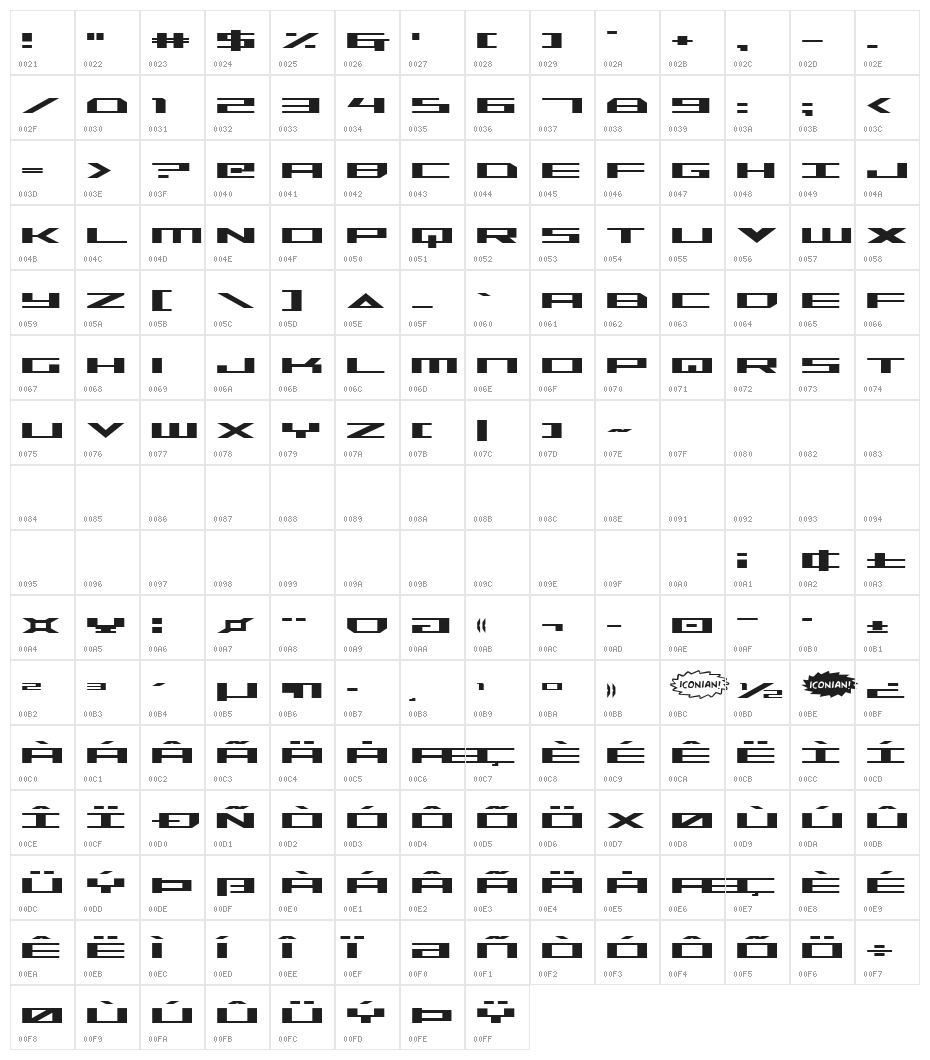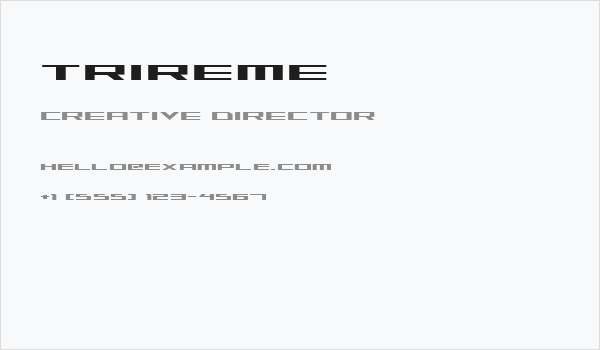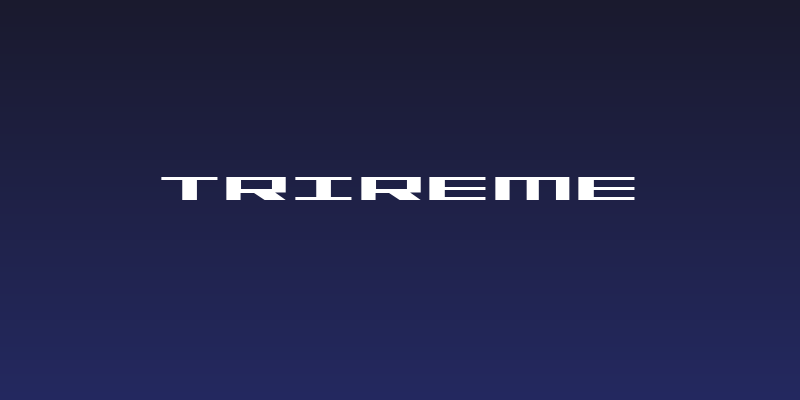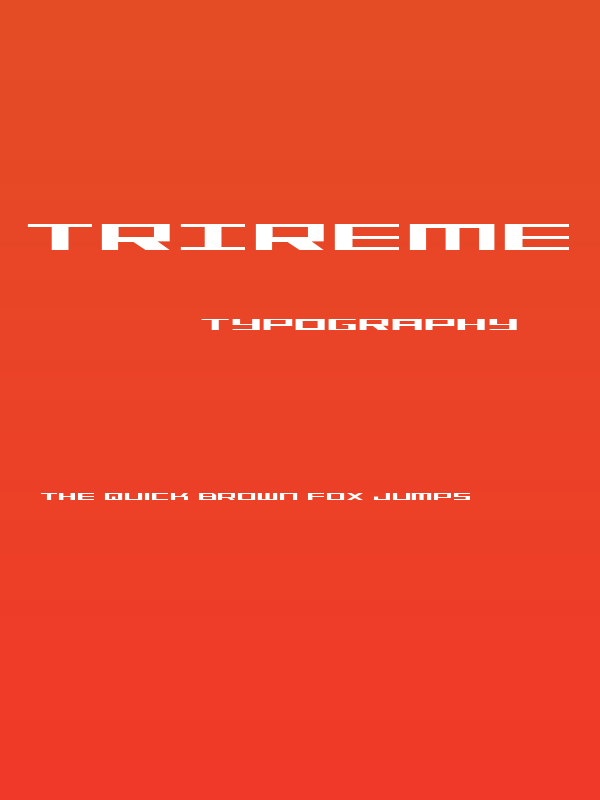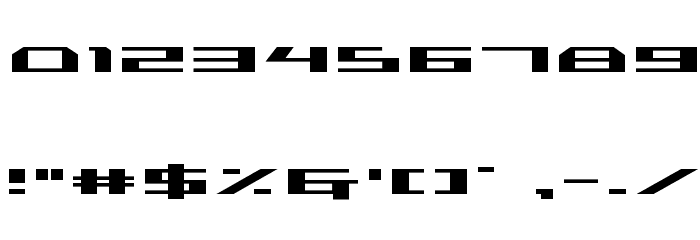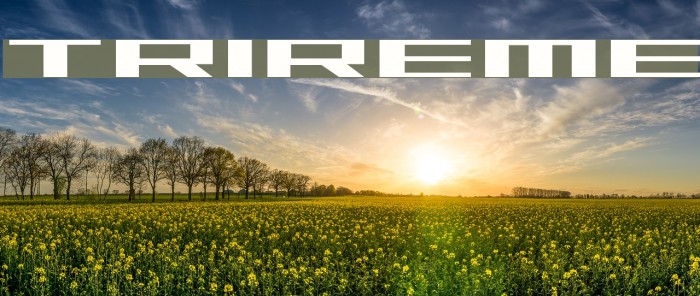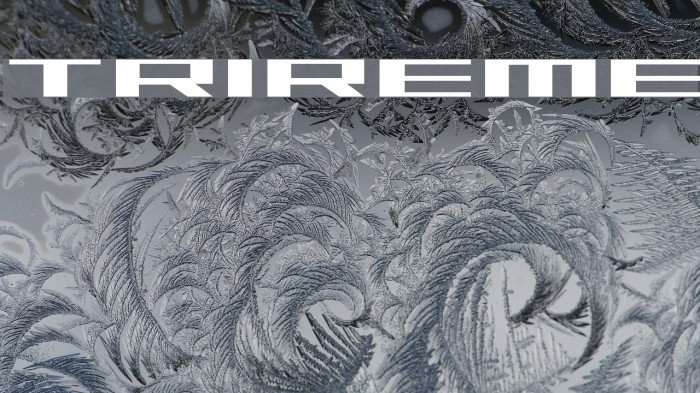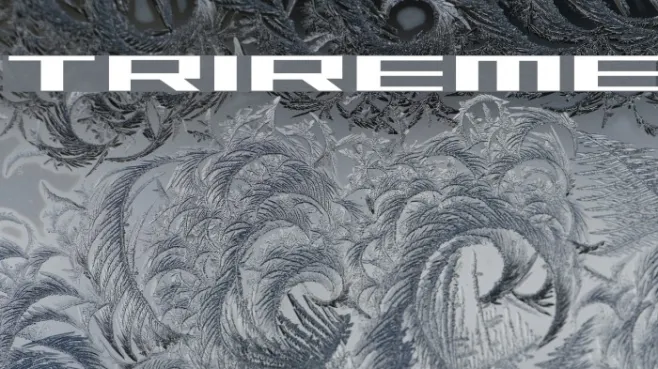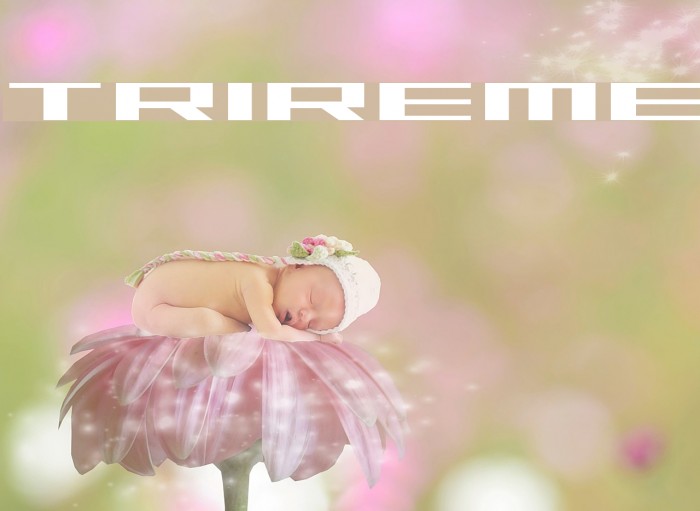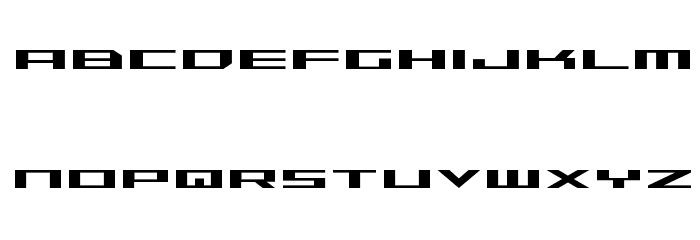
Trireme Font
Trireme Description
This font features a bold and futuristic design with geometric shapes and sharp angles. The characters are constructed with a blocky appearance, giving them a strong and impactful presence. The uppercase and lowercase letters maintain a consistent style, emphasizing uniformity and precision. The numbers and special characters follow the same design principles, ensuring a cohesive look across all elements. This font's unique style makes it suitable for projects that require a modern and edgy aesthetic.
| Proposed Projects | Ideal for sci-fi themed designs, video game graphics, tech branding, and modern posters. |